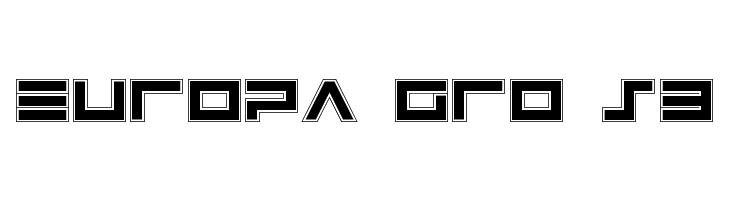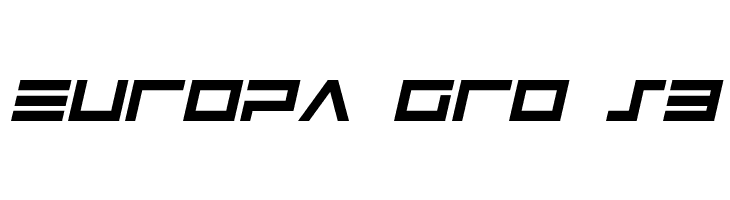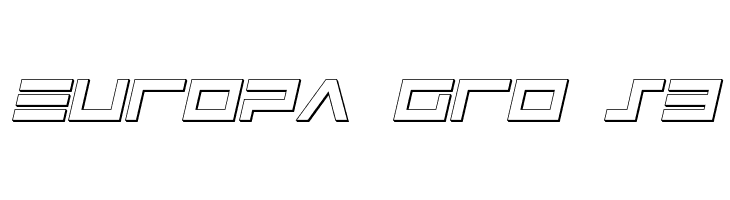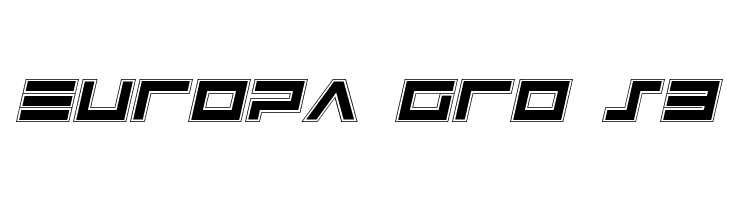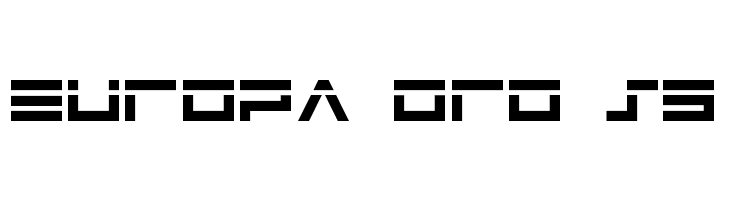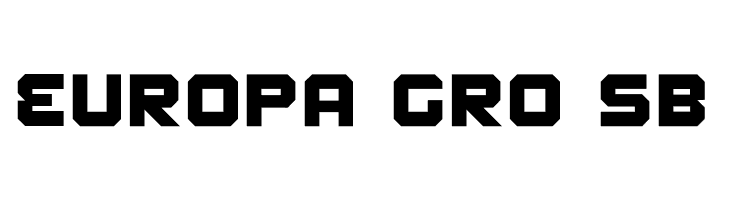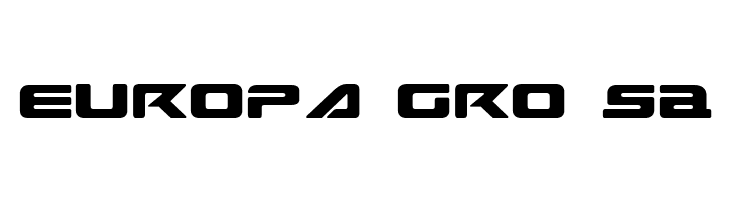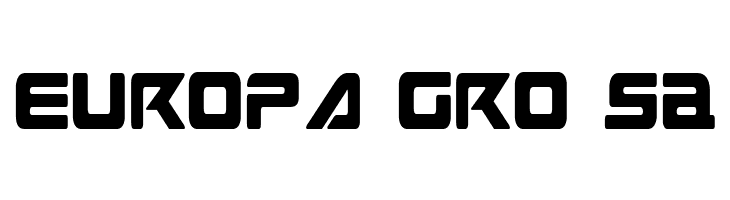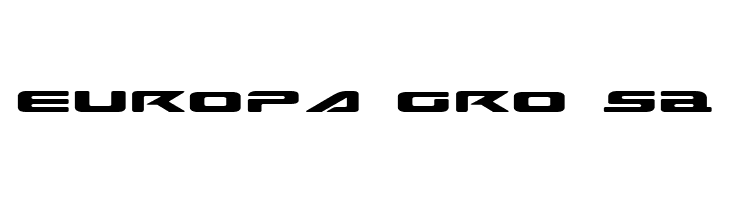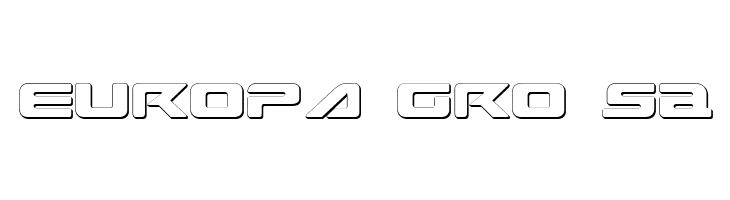
A bold, geometric font with angular shapes and a futuristic style.
A bold, futuristic italic font with sharp angles and geometric precision.
A futuristic, angular font with a shadow effect and italic slant.
A bold, italicized font with a futuristic, dynamic style and three-dimensional effect.
A futuristic, geometric font with bold, angular letterforms.
( Fonts by Iconian Fonts - Daniel Zadorozny )
A futuristic, geometric font with bold, angular lines and a tech-inspired aesthetic.
( Fonts by Iconian Fonts - Daniel Zadorozny )
A futuristic, geometric font with bold, angular shapes and a condensed style.
( Fonts by Iconian Fonts - Daniel Zadorozny )
A futuristic, geometric font with bold, angular letterforms.
( Fonts by Iconian Fonts - Daniel Zadorozny )
A futuristic, geometric font with a shadow effect and sleek design.